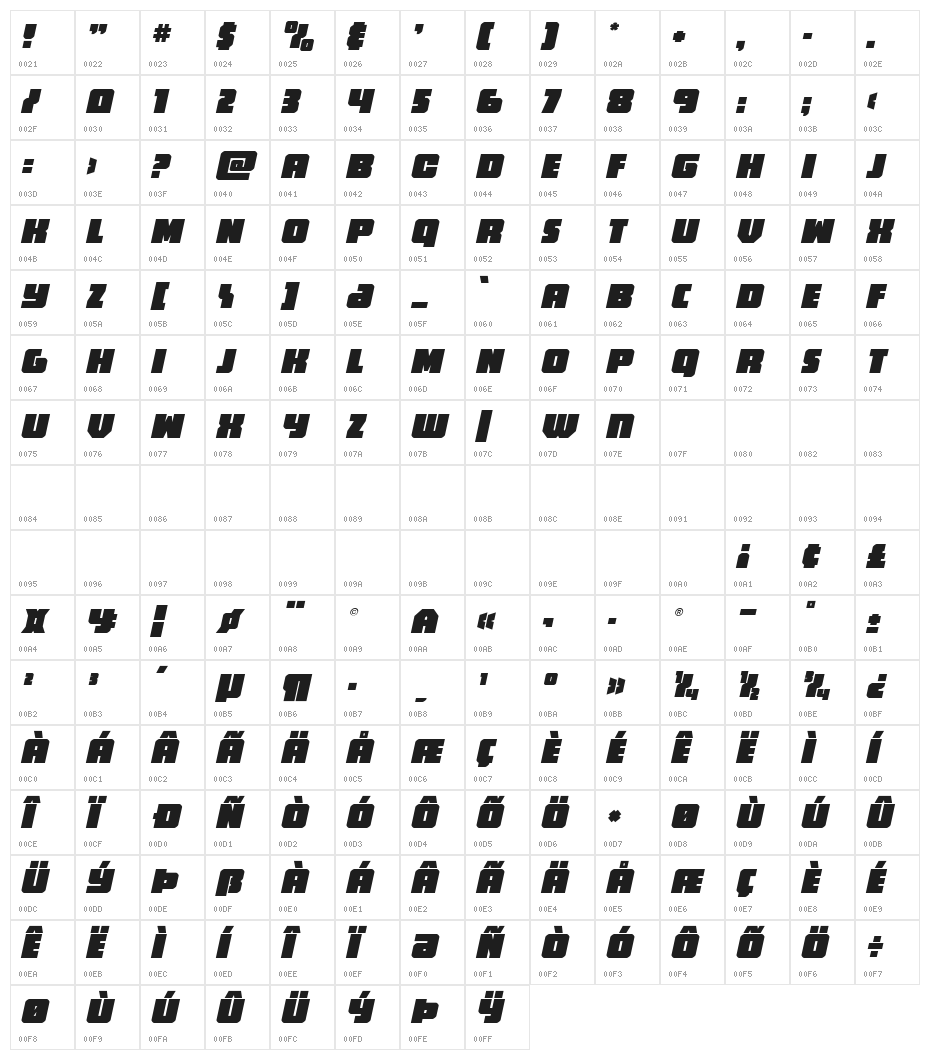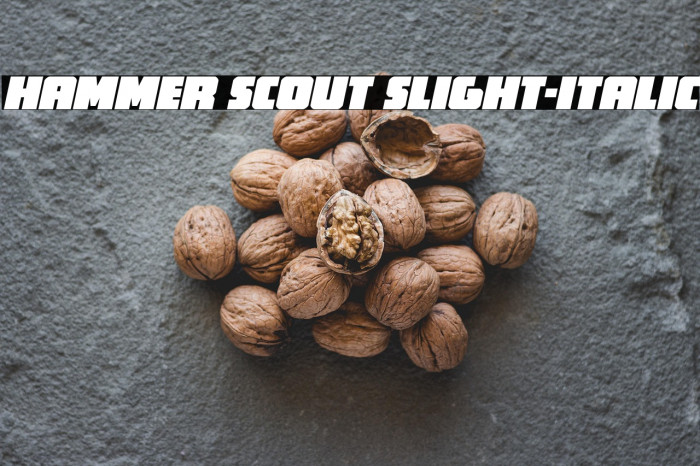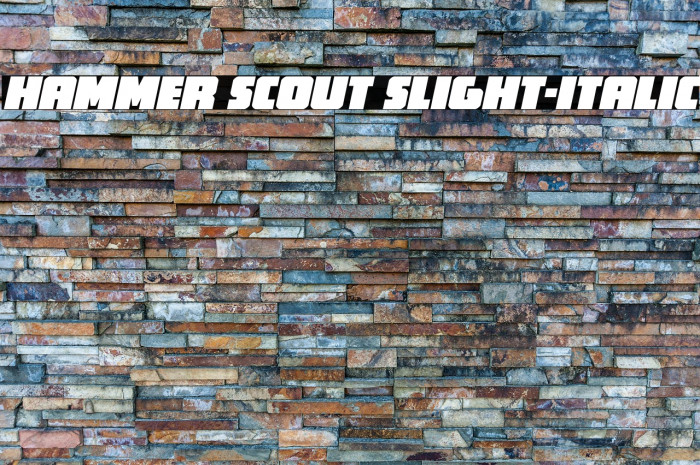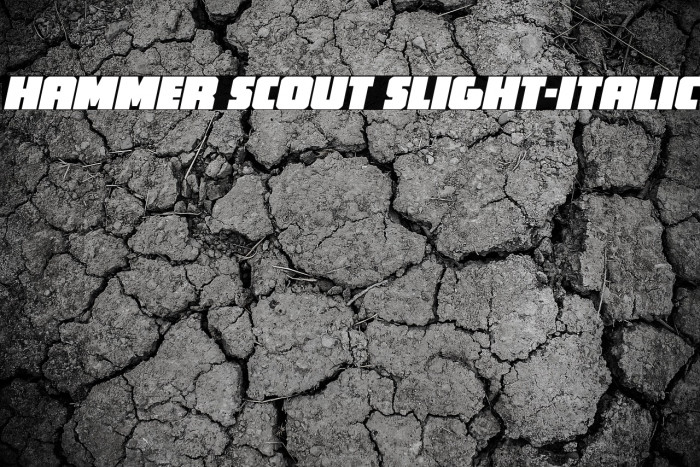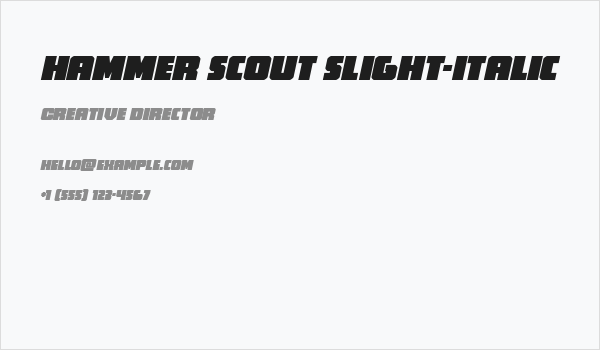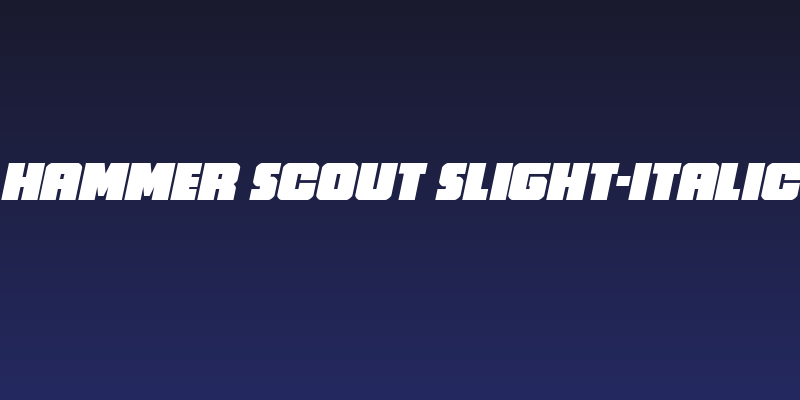
Hammer Scout Slight-Italic Font
Hammer Scout Slight-Italic Description
This font features a bold and dynamic design with a slightly italicized slant, giving it a sense of movement and energy. The characters are robust and thick, with a strong presence that commands attention. The angular edges and geometric shapes contribute to a modern and industrial feel, making it suitable for impactful and eye-catching designs. The uppercase letters are particularly striking, with a uniform weight that maintains readability even at smaller sizes. The numbers and special characters are consistent with the overall style, ensuring a cohesive look across different uses.
Proposed ProjectsIdeal for sports branding, posters, headlines, and any project requiring a strong, dynamic typeface.